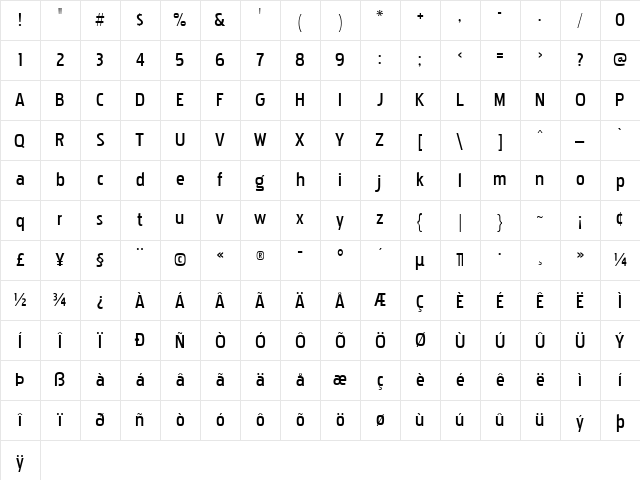
Pakenham Bk Regular
Complete Pakenham Bk Regular glyph index. Displaying only characters natively supported by Pakenham Bk Regular font.
Design Context for Pakenham Bk
Pakenham Bk is a composed and adaptable typeface that performs quietly and consistently across a wide range of design contexts.
Pro Tip: Use Pakenham Bk in both headline and body roles to test its range before committing to a single application.